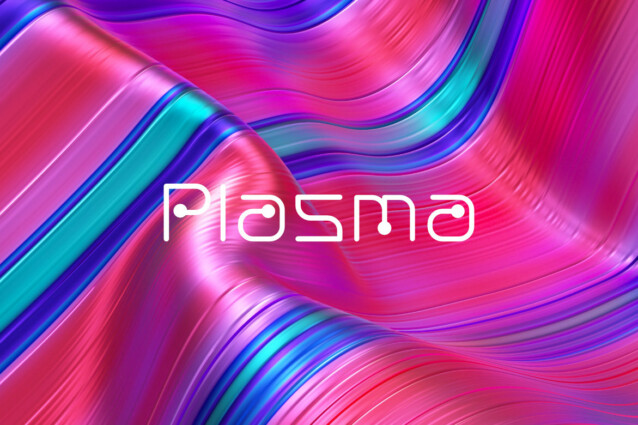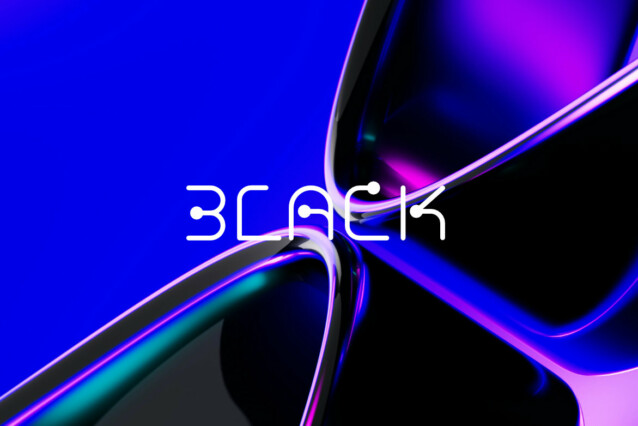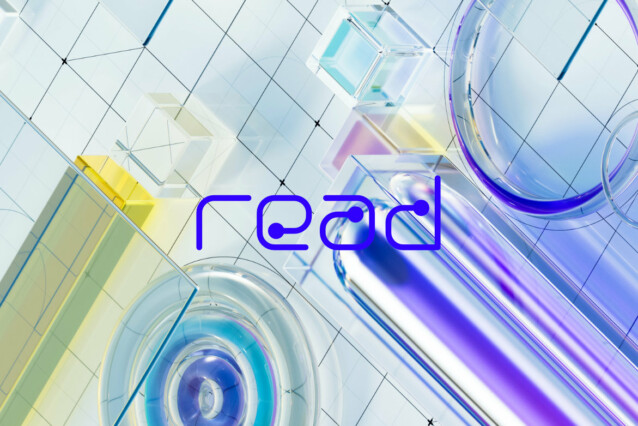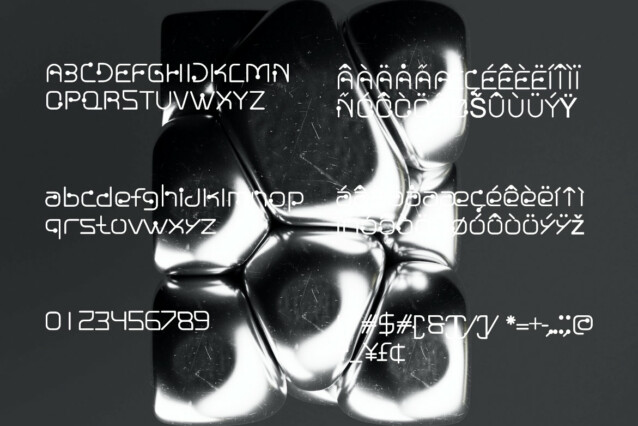
Nuixyber Pro Font
Nuixyber Pro Font is a cool and modern display font. It will look stunning on any poster, flyer or print. Use this font for your designs and explore its endless possibilities.